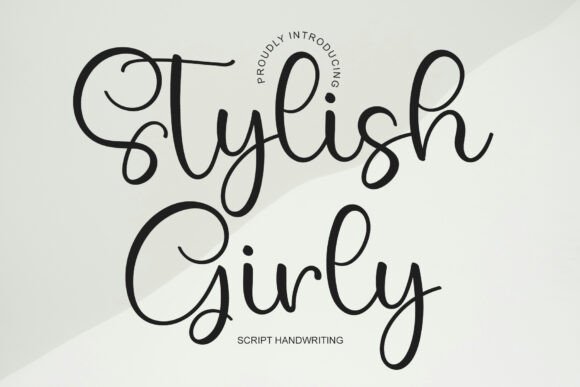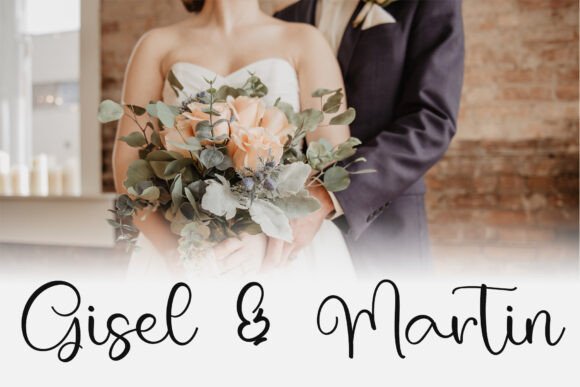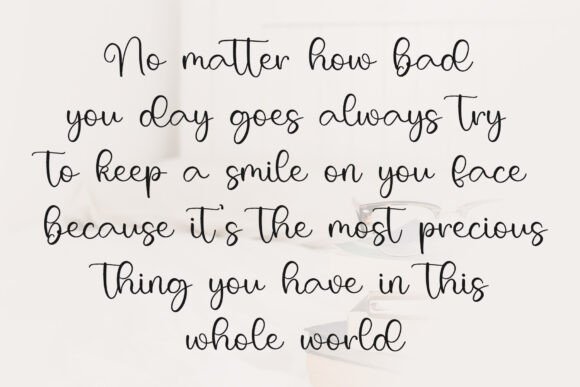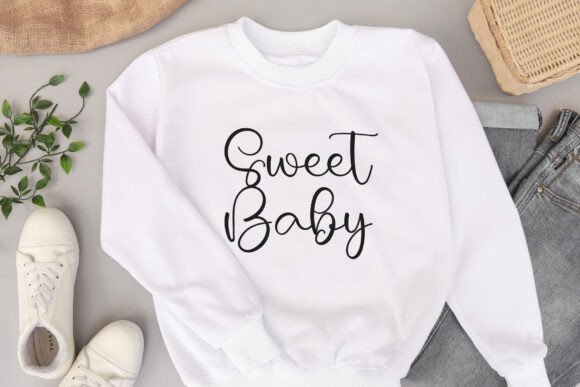
Stylish Girly Font
About the Stylish Girly Font
Add a touch of class to your work with the Stylish Girly Font, a truly exceptional typeface. Stylish Girly is a delightful handwritten font imbued with warmth and personality. Its whimsical strokes and varied letterforms evoke a sense of authenticity and charm, making it perfect for conveying heartfelt messages. Whether used for invitations, greeting cards, or branding, this font adds a touch of warmth to any design.
Stylish Girly Font Usage Examples
Stylish Girly Font Example